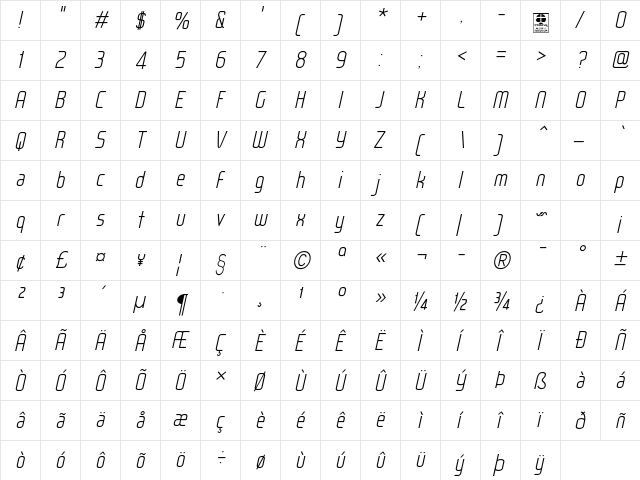
WOX~Modelist Light Italic Demo Regular
Design Context for WOX~Modelist Light Italic Demo Typeface
WOX~Modelist Light Italic Demo is a composed and adaptable typeface that performs quietly and consistently across a wide range of design contexts. The slanted form adds forward momentum and visual energy. The delicate stroke weight brings airiness and refinement to layouts.
Pro Tip: Use WOX~Modelist Light Italic Demo for emphasis, pull quotes, and subheadings where its slanted energy can add rhythm to the layout.